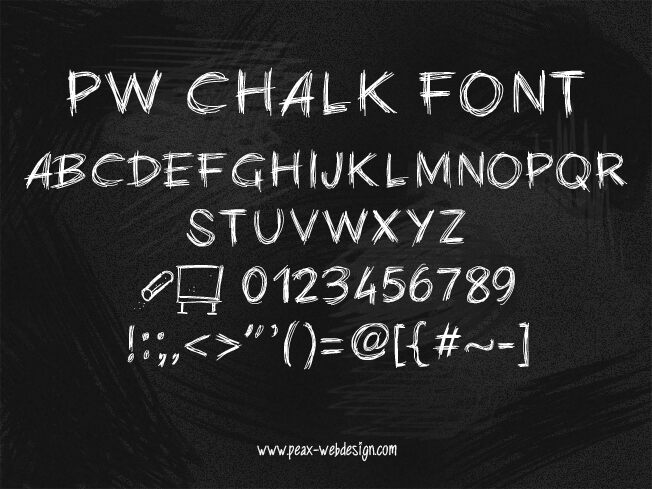
PW Chalk by Peax Webdesign is a free trash-style handwritten font with the raw look of lettering scratched, crossed over, and redrawn several times in a hurry. The tall, uneven capitals stretch sharply upward, and repeated passes leave thin doubled lines, blunt crossings, narrow curves, and stray marks around nearly every shape.
Punk music, skate culture, and underground events are its clearest territory, since its nervous strokes suit gig posters, album artwork, and event graphics modeled on rough photocopied flyers and marker scrawls. It also fits horror paperback covers and streetwear labels.